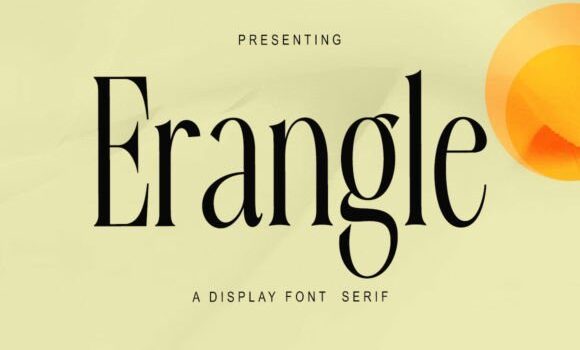
erangle
Erangle Font - Featured Image
Erangle Font – Free Download Introduction to Erangle Font Erangle is an elegant serif typeface inspired by a vintage type specimen found at an art fair. 📸 Preview Gallery 6 images 📌 Product Name Erangle Font 👤 Author gatype 📂